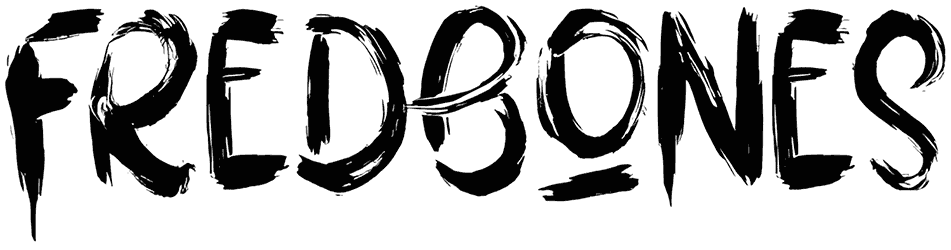
Fredbones Font
There are only a few fonts good enough to express a spooky tone while going with a brush outline. So you better not make the mistake of not adding Fredbones to your graphic tool.
Even without the lowercase, this blood font works impeccably for fitting the bill in all kinds of headlines. Websites, posters, T-shirts, and games are just a few to name, but you get the main idea yourself. Receive this impressive horror font now and make it bloody.